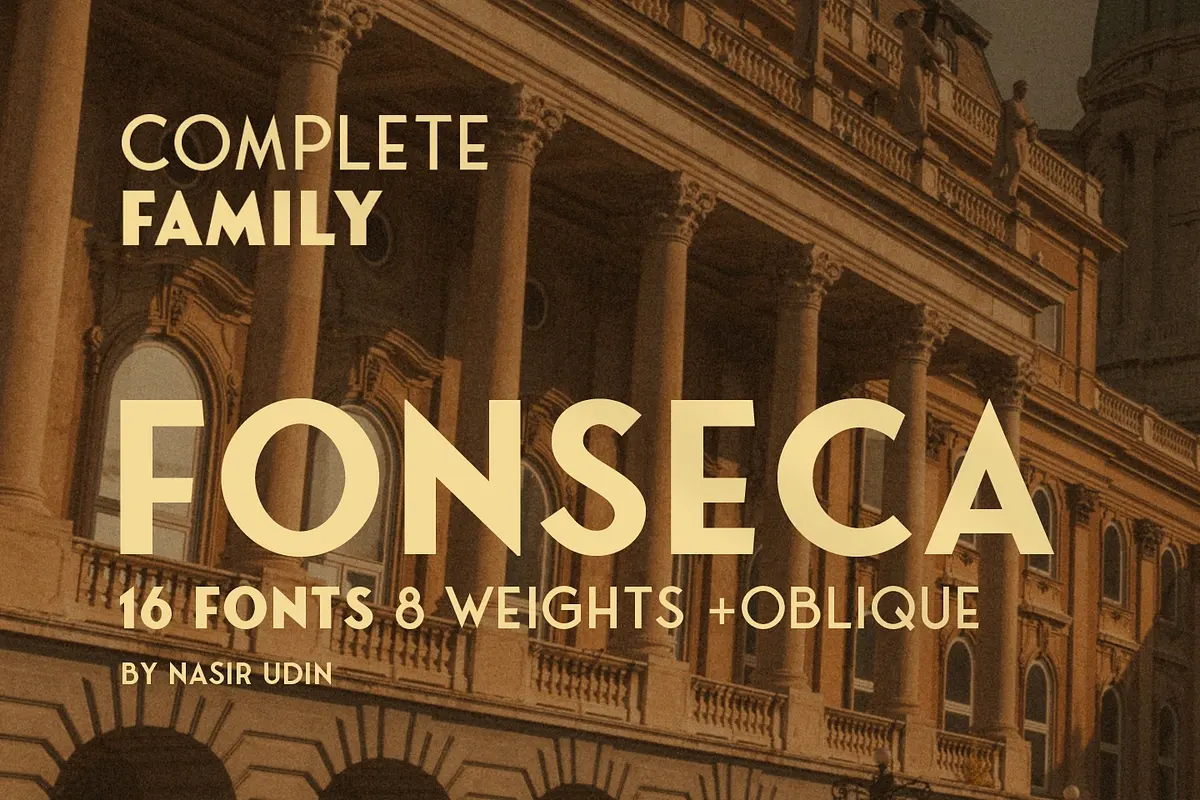
Fonseca Font Free Download (ver.02 – 16 Fonts) is a versatile geometric sans serif typeface family inspired by vintage travel posters and classic art deco styles. With its clean lines, sharp angles, and timeless appeal, Fonseca is perfect for branding, packaging, posters, signage, editorial design, and retro-modern visual identities.
This updated version includes 16 styles—from light to bold weights, italics, and alternates—giving you maximum flexibility for building a cohesive design system. Fonseca features uppercase and lowercase letters, multilingual support, numerals, punctuation, and stylistic alternates for dynamic and visually engaging typography.
Whether you're designing a nostalgic travel brand or a sleek editorial layout, Fonseca Font Free Download provides the aesthetic and performance of a true display workhorse. Use it in personal projects or concept designs, and be sure to purchase the proper license for any commercial use. Embrace the elegance of vintage modernism with this beautifully crafted font family.